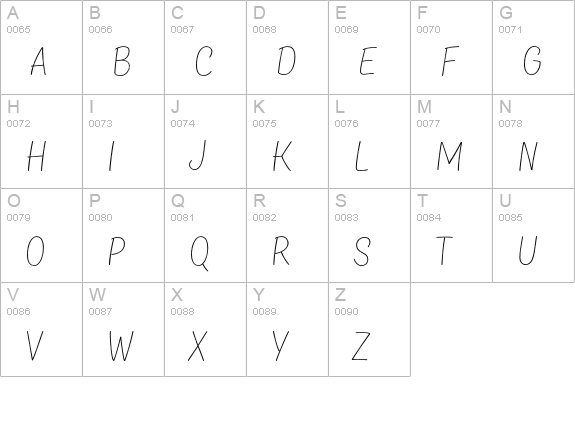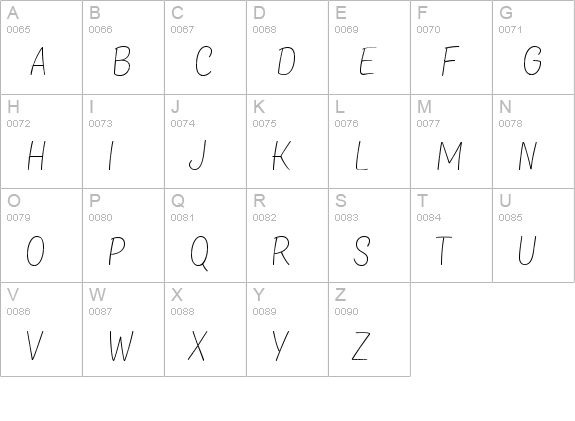
TT Masters Rough Thin Font Details
TT Masters Rough Thin is a delicate, low-contrast variant in the TT typeface family \xE2\x80\x94 well suited to fashion editorial, minimal branding, and high-contrast display.
TT Masters Rough Thin font is a unique and versatile typeface that combines a rough, edgy texture with a sleek and modern thin weight. This font is perfect for adding a touch of personality and creativity to your design projects. Whether you're working on posters, branding, websites, or any other creative endeavor, TT Masters Rough Thin font will make your text stand out and grab attention. And the best part? It's completely free to download at FontsMarket.com! Just head over to the website and add this stunning font to your collection without spending a dime. With its stylish aesthetic and easy readability, TT Masters Rough Thin font is sure to become a go-to choice for all your design needs. Don't miss out on this fantastic opportunity to enhance your projects with this amazing font.